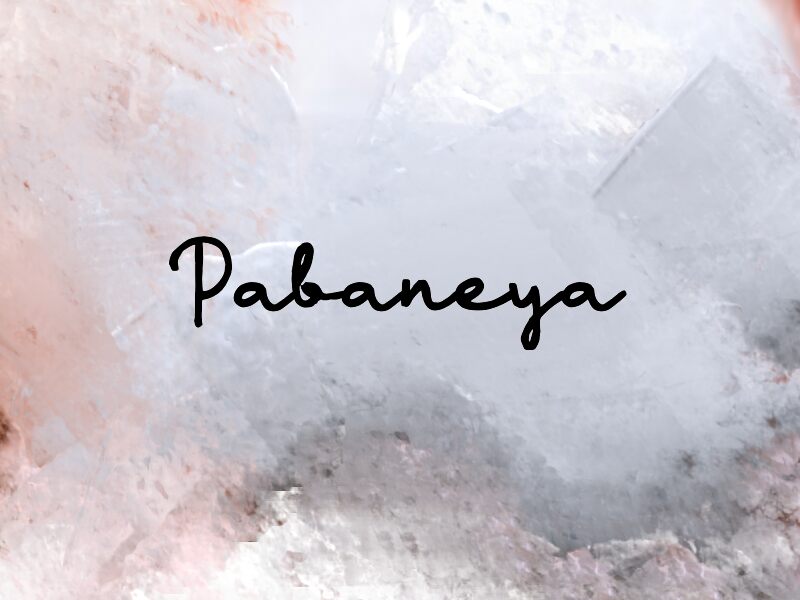
Pabaneya font designed by wep captures the raw beauty of authentic handwriting, showcasing fluid and fashionable characters that form a casual style. With letters often seemingly connected for that extra personal touch, the script font is defined by an organic flow with some characters even having decorative swashes. Sharp, thick in some spots, and thin in others, this free font combines a modern feel with its approachable mood for an intimate expression and a more personal touch.
Bring a personal touch to your stationery and use Pabaneya for letters and envelopes, or write heart-felt thank-you cards for your loved ones. Let it inspire your notes and doodles or design logos and branding designs that reflect the mood of a small lovely business. You can also create typography art and blog posts using the different lower and uppercase letters.
Pabaneya is a unique and stylish free font that brings a touch of creativity to your designs. Perfect for a variety of projects, this font offers versatility and character, making it an excellent choice for graphic designers and anyone in need of eye-catching typography.